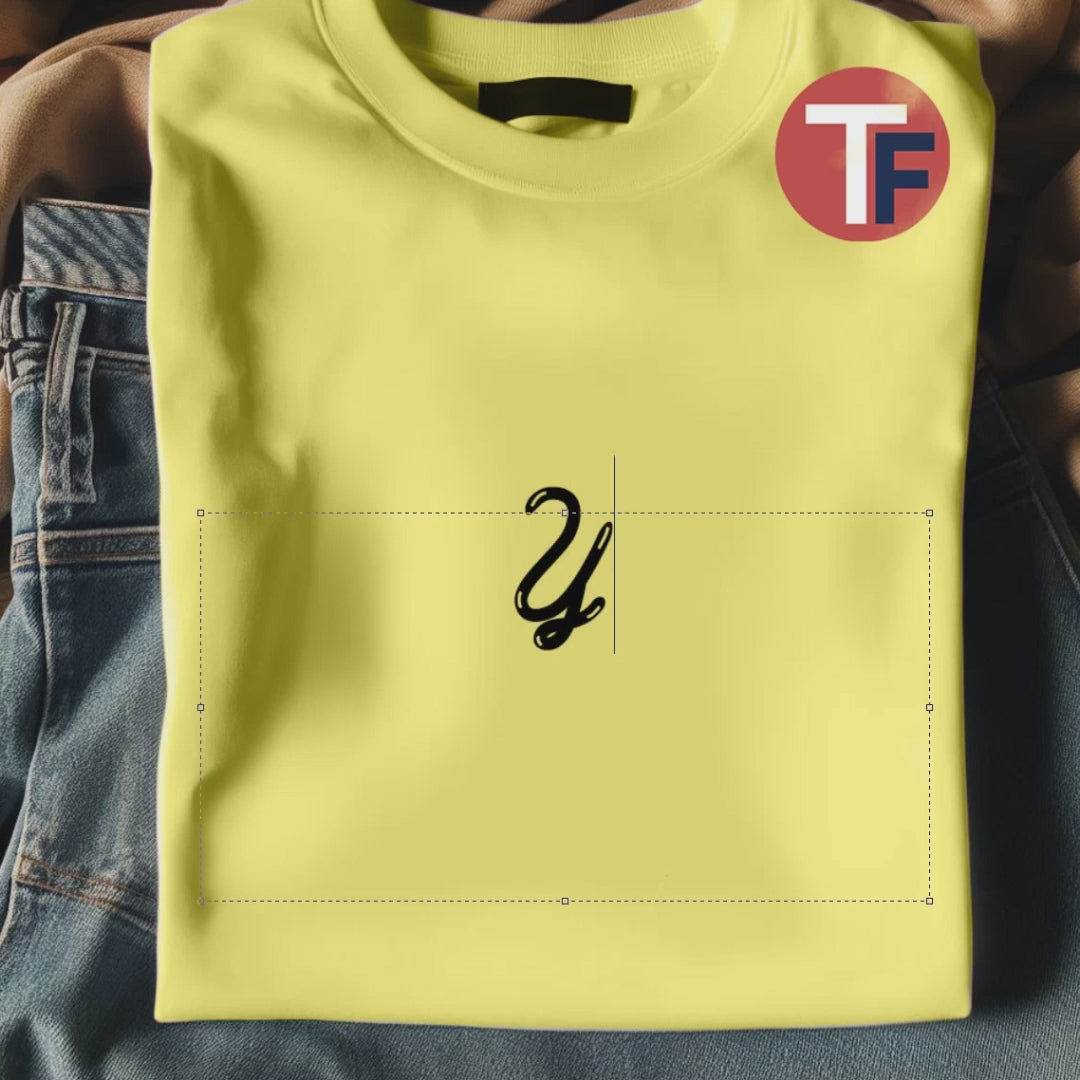
Retro Diva Font
Add Vintage Glamour with the Retro Diva Font
Step into the enchanting world of classic animation with our Retro Diva font. Perfect for fans of the iconic flapper and designers looking to add a touch of vintage glamour to their projects, this font captures the playful and sophisticated spirit of the beloved character. Whether you're creating event invitations, designing themed merchandise, or crafting digital content, our Retro Diva font ensures your projects resonate with the charm and elegance of this classic figure.
Our Retro Diva-inspired font features elegant, curvy lines and whimsical details that reflect the glamorous and playful nature of the character. This versatile font is ideal for a variety of applications:
- Event Invitations: Perfect for creating stylish invites for vintage-themed parties, movie nights, or special celebrations.
- Merchandise Design: Ideal for designing t-shirts, posters, and accessories that capture the essence of Retro Diva.
- Digital Media: Enhance websites, blogs, and social media content with charming headers and graphics.
- Educational Materials: Use in presentations, worksheets, and educational content focused on animation history, character design, or storytelling.
- Personal Projects: Add a touch of vintage flair to scrapbooking, DIY crafts, or home decor inspired by the iconic character.
Our Retro Diva font not only pays homage to the timeless character but also empowers you to infuse your designs with her playful and elegant spirit. Whether you’re crafting promotional materials, designing unique merchandise, or adding a vintage touch to personal projects, this font allows you to communicate with the charm and sophistication that define this classic icon. Ready to bring a bit of classic Hollywood magic to your creative endeavors? This font is your key to unlocking a world of glamorous and delightful design.